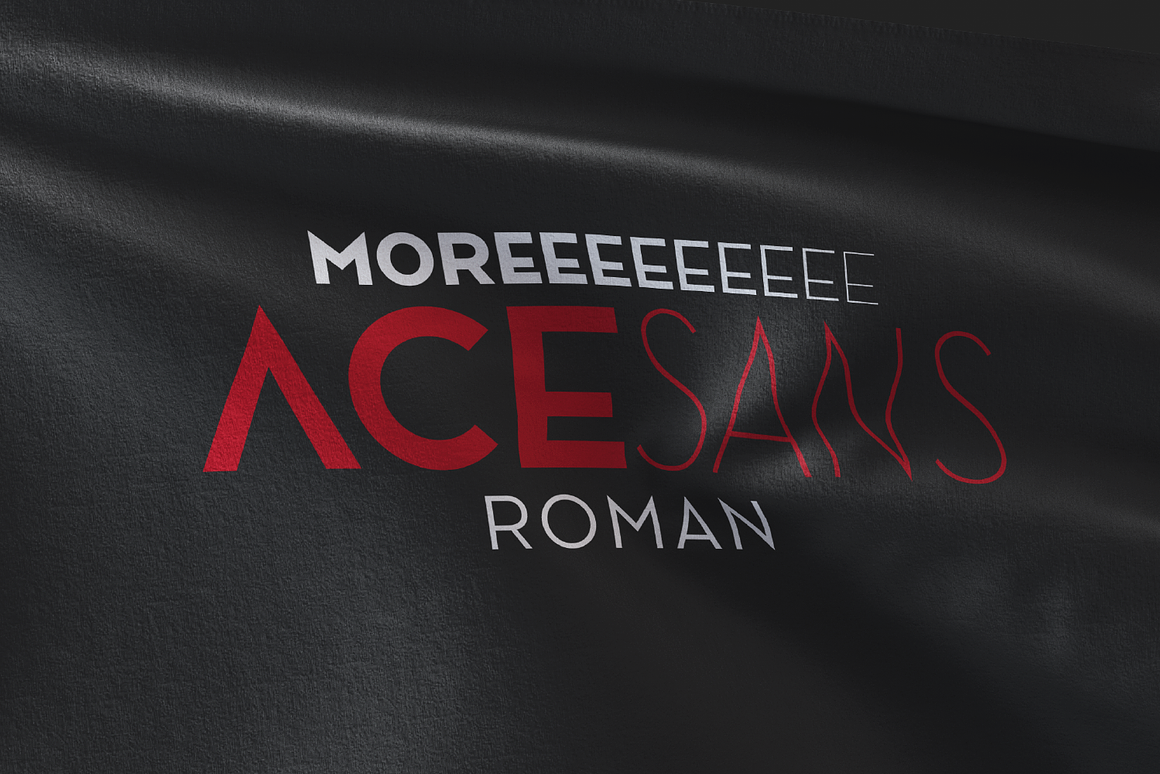
Ace Sans Roman Font
Ace Sans Roman Font is perfect for corporate branding, web design, user interfaces, mobile applications, business communications, professional presentations, signage systems, digital magazines, advertising campaigns, and modern editorial design. This versatile typeface excels in both digital and print applications requiring clean professionalism.
Ace Sans Roman Font is exciting because it combines classical proportions with contemporary sans serif clarity, offering balanced letterforms that deliver exceptional readability and professional authority while maintaining modern aesthetic appeal. Its refined character creates trustworthy communications that resonate with diverse audiences.
The Ace Sans Roman Font family includes regular, bold, light, italic, condensed, extended, and display variants, providing designers with comprehensive typographic options for various design scenarios and corporate communication requirements.
Ace Sans Roman Font represents the perfect fusion of classical typography principles with modern sans serif functionality, delivering exceptional versatility for organizations seeking to balance tradition with innovation in their visual communications. This sophisticated typeface incorporates the proportional harmony of Roman letterforms while eliminating decorative elements to create clean, contemporary aesthetics. The font's balanced character makes it particularly valuable for consulting firms, technology companies, healthcare organizations, and professional services that require typography capable of conveying both expertise and approachability.
The architectural precision of Ace Sans Roman Font ensures optimal performance across diverse communication platforms, from responsive web interfaces to printed materials requiring exceptional clarity and professional appearance. This systematic design approach guarantees consistent results whether displayed on high-resolution screens or reproduced in detailed corporate documentation. The font's neutral yet distinctive personality creates memorable brand experiences that enhance user engagement while maintaining the credibility essential for business success.
Creative professionals working with Ace Sans Roman Font Free Download will discover a powerful tool that adapts seamlessly to various design challenges. Its contemporary styling bridges traditional and innovative approaches, making it suitable for established corporations and modern startups requiring reliable, professional typography. The font's authoritative presence makes it especially effective for financial services, educational institutions, government agencies, and business consultancies that must communicate competence through clear, accessible visual design.
From digital platforms to brand identities, Ace Sans Roman Font provides the typographic foundation for professional communications that inspire confidence and convey expertise, ensuring your message achieves maximum impact while maintaining competitive advantage in today's dynamic business environment.